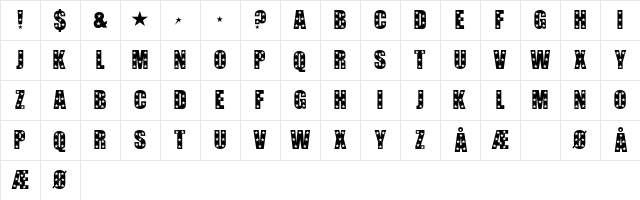
Hollywood Regular Free Font
Hollywood Regular
Foundry: Spacefish Productions
Designer: Martin Holm
Design Context for Hollywood
Hollywood echoes the hand-painted signage and woodblock typography of the American frontier, with a warm, rugged personality.
Font Pairing: Combine Hollywood with a simple slab or neutral sans - period-accurate companions reinforce the vintage feel without competing for attention.
Pro Tip: Use Hollywood for short, impactful bursts of text - it shines in poster headlines and product names rather than extended copy.